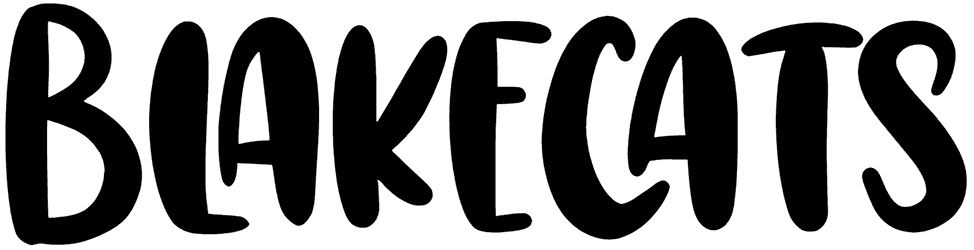
Blakecats Font
By using Blakecats, you can open your mind to all informal ideas. This balloon font is a great way to liven things up and cheer them up.
Because it has a childish and fun look that, even though it doesn’t have numbers, small letters, and punctuation, allows you to play with different elements and implement creative designs. As a result, you can use it to design children’s websites, toy company logos, and playground signs.